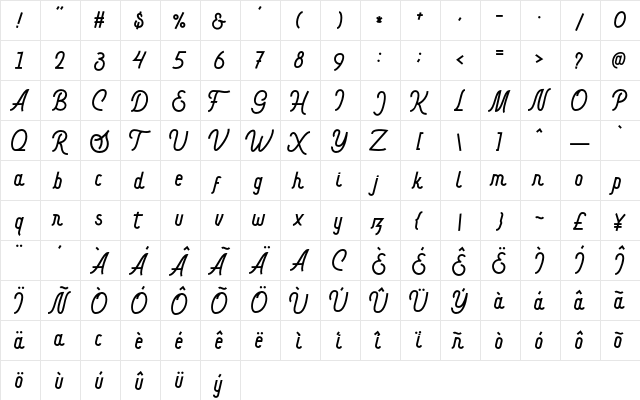
Hargael Regular
| Foundry | Chandra ~ Vultype Co |
| Designer | Chandra ~ Vultype Co |
Design Context for Hargael Typeface
Hargael offers clean, dependable letterforms without strong stylistic allegiance, making it a practical choice for designers who need flexibility.